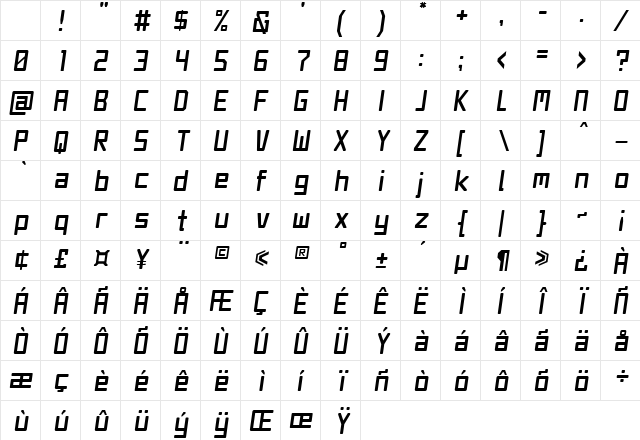
Complete Jet Set Italic glyph index. Displaying only characters natively supported by Jet Set Italic font.
Jet Set is a composed and adaptable typeface that performs quietly and consistently across a wide range of design contexts. The slanted form adds forward momentum and visual energy.
Pro Tip: Use Jet Set for emphasis, pull quotes, and subheadings where its slanted energy can add rhythm to the layout.